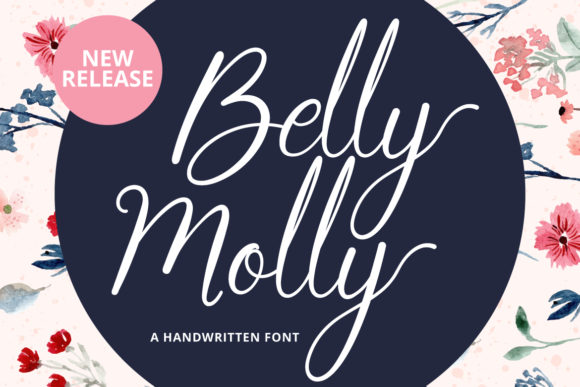
The Elusive Perfect Font: My Encounter with Belly Molly
Ah, the quest for the perfect font. We’ve all been there – stuck in the midst of a project, pouring over font options, and yet, nothing seems quite right. I recall a particularly frustrating experience while working on a wedding invitation design. My client wanted an elegant, yet modern script font that would make their special day feel truly unforgettable. After hours of searching, I stumbled upon Belly Molly – an elegant script font that would change the game.
An Honest Review of Belly Molly
So, what makes Belly Molly so special? Let’s dive into the good stuff and, of course, a few quirks I’ve discovered along the way.
- ✨ Elegant yet Modern: Belly Molly strikes the perfect balance between classic calligraphy and contemporary design. It’s sophisticated without being too ornate or overpowering.
- 💫 Balanced and Varied: The strokes are beautifully balanced – not too thin, not too thick. This balance, combined with a range of alternates, ensures your designs always look fresh and engaging.
While Belly Molly has won my heart, there are a couple of things to keep in mind:
- 🤔 Pairing with Other Fonts: As with any elegant script font, finding the right pairing can be crucial. You might need to experiment with a few options to find the perfect complement.
The Story Behind Belly Molly: Designer Inspiration
While the exact backstory of Belly Molly’s creation isn’t widely known, it’s clear that the designer was inspired by timeless classic calligraphy, aiming to bring a sense of elegance and modernity to the world of script fonts. The result is a font that feels both nostalgic and fresh.